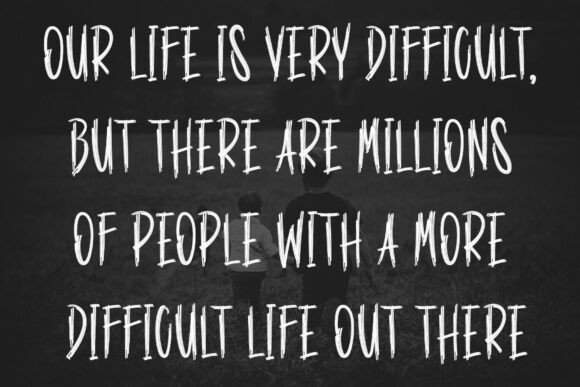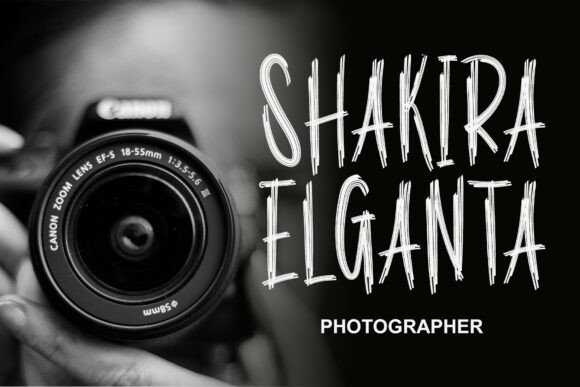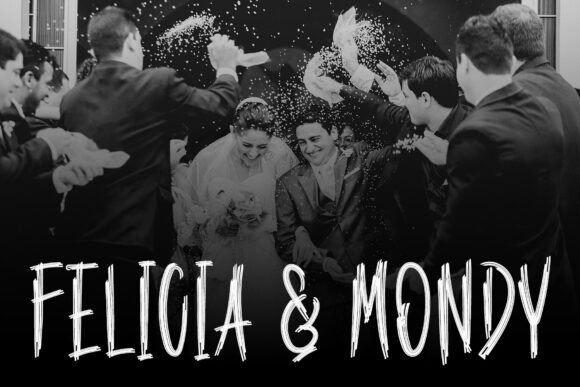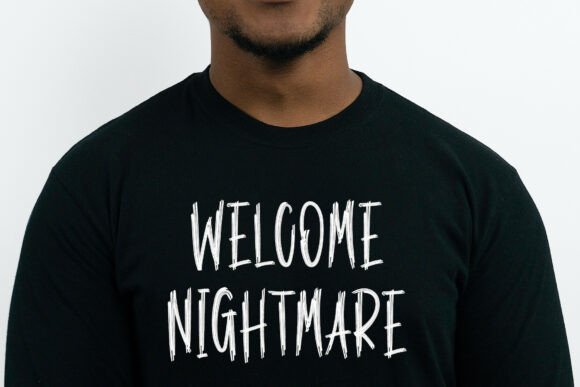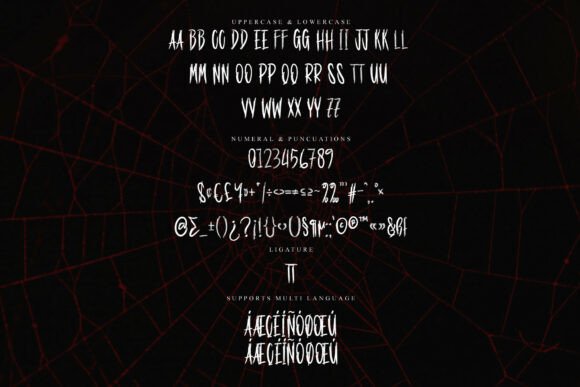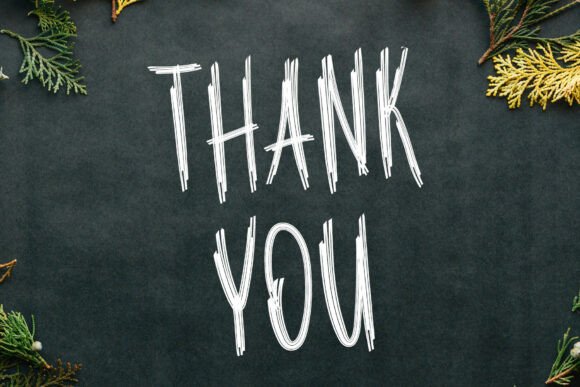
Introduction to Handwriting Practice Font
Handwriting Practice is a captivating display font that combines strength and elegance, making it perfect for bold and eye-catching designs.
With its unique letterforms and a touch of mystery, this charming font adds a sense of wonder and sophistication to any project Whether youโre aiming for a mystical, modern, or elegant look, Magical Whisper is the font that enchants and inspires.
Key Features of Handwriting Practice Font
Why Choose Handwriting Practice Font?
Handwriting Practice Font offers exceptional quality and versatility, making it a valuable addition to your design toolkit. Whether you’re creating for personal projects or commercial use, Handwriting Practice Font delivers professional results.